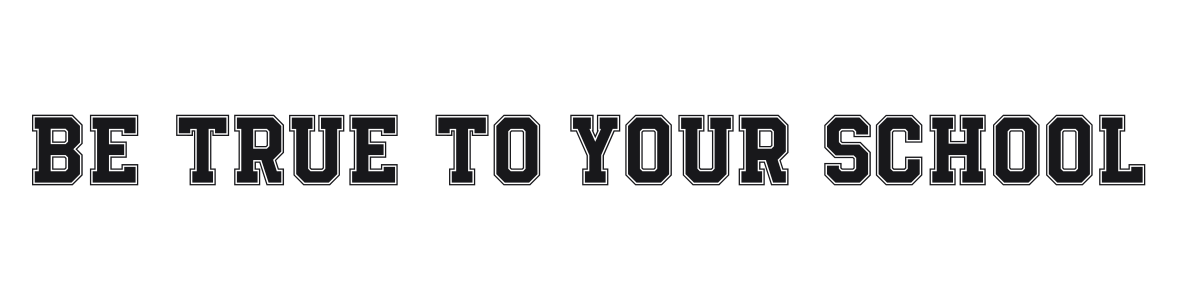
Be True To Your School
Be True To Your School is a bold collegiate serif built on classic American varsity lettering traditions. Each character features a signature inline white outline that gives the type a dimensional, screen-printed quality. Strong at large sizes for sports branding, team apparel, poster headlines, and anything with a nostalgic school-spirit energy.